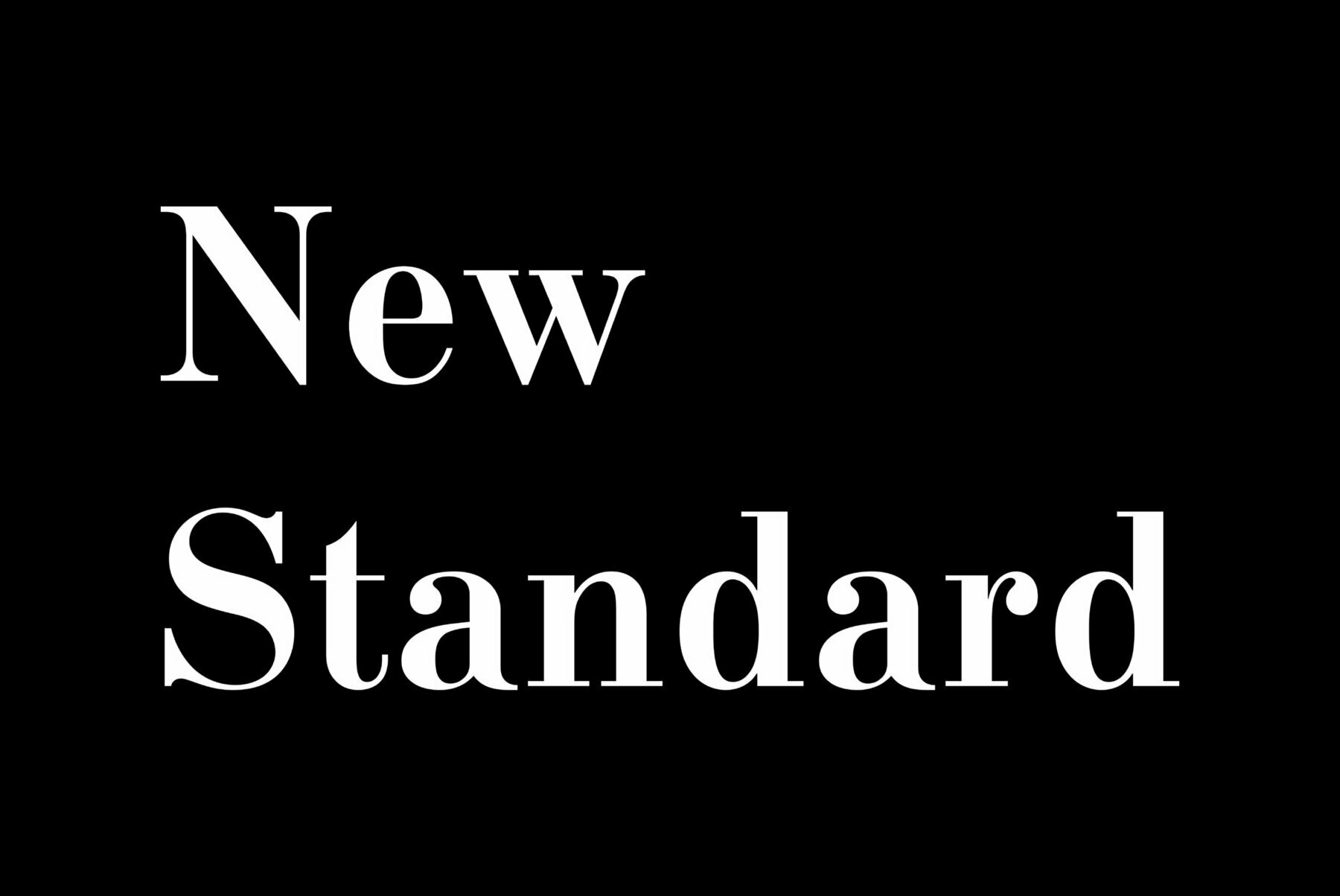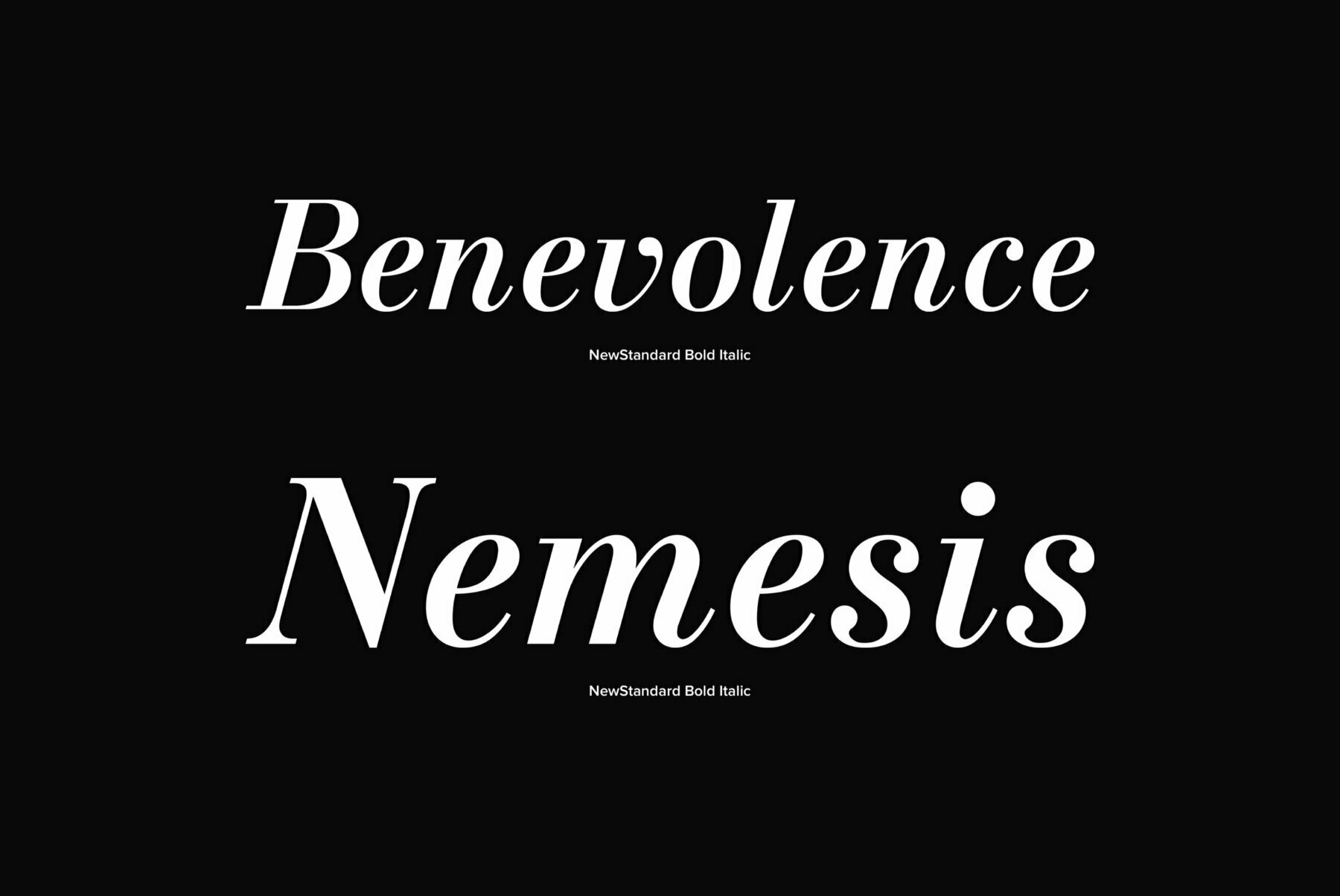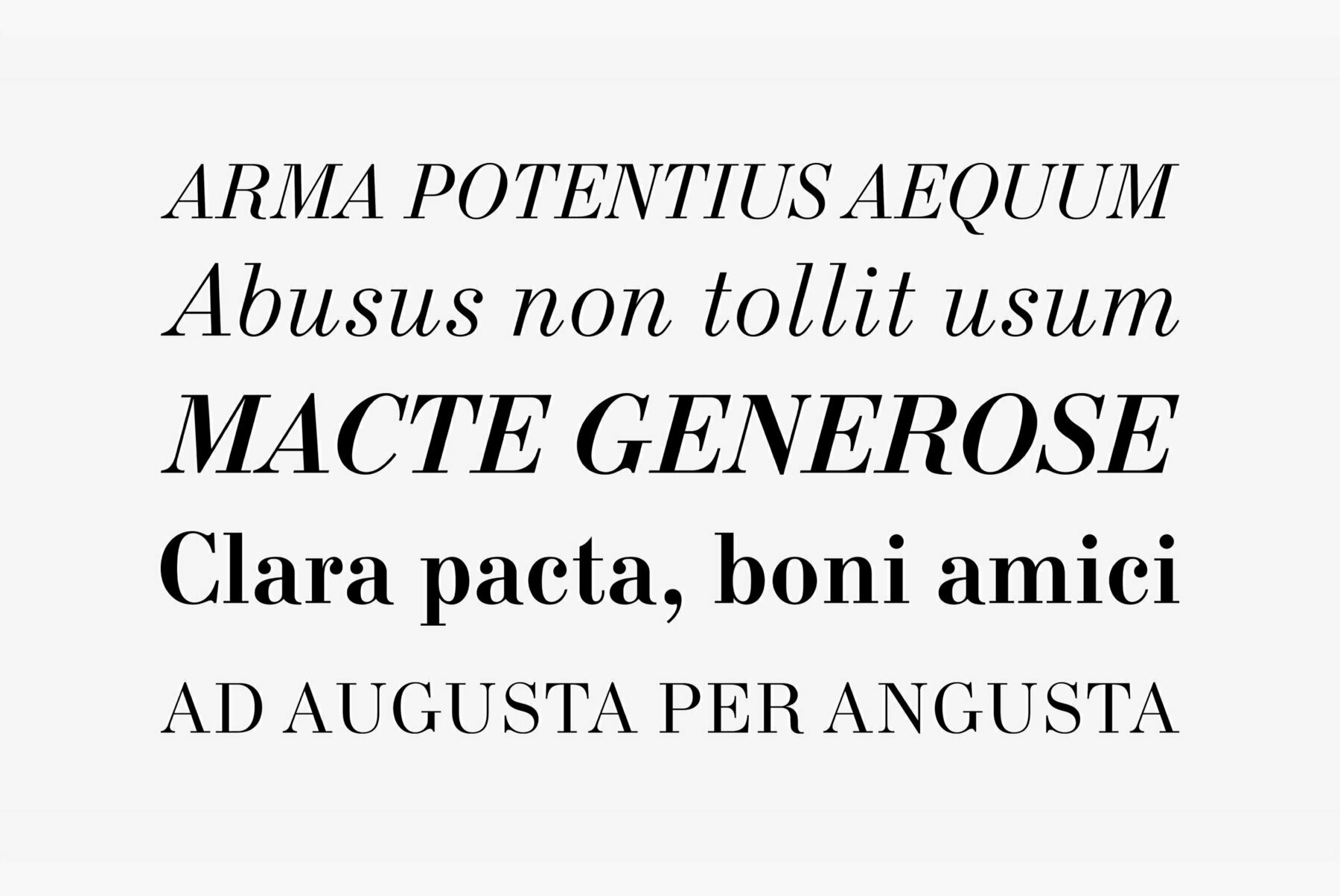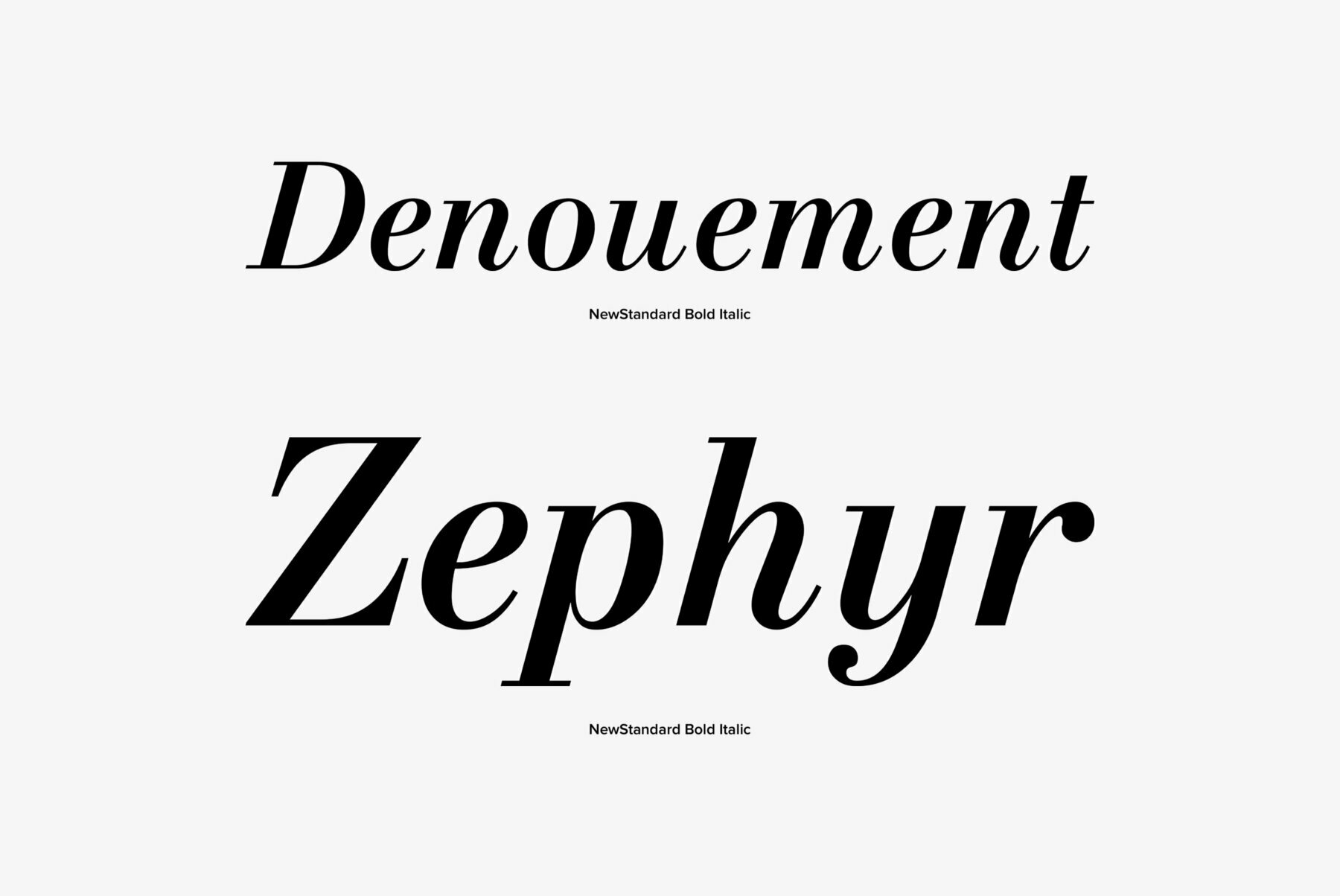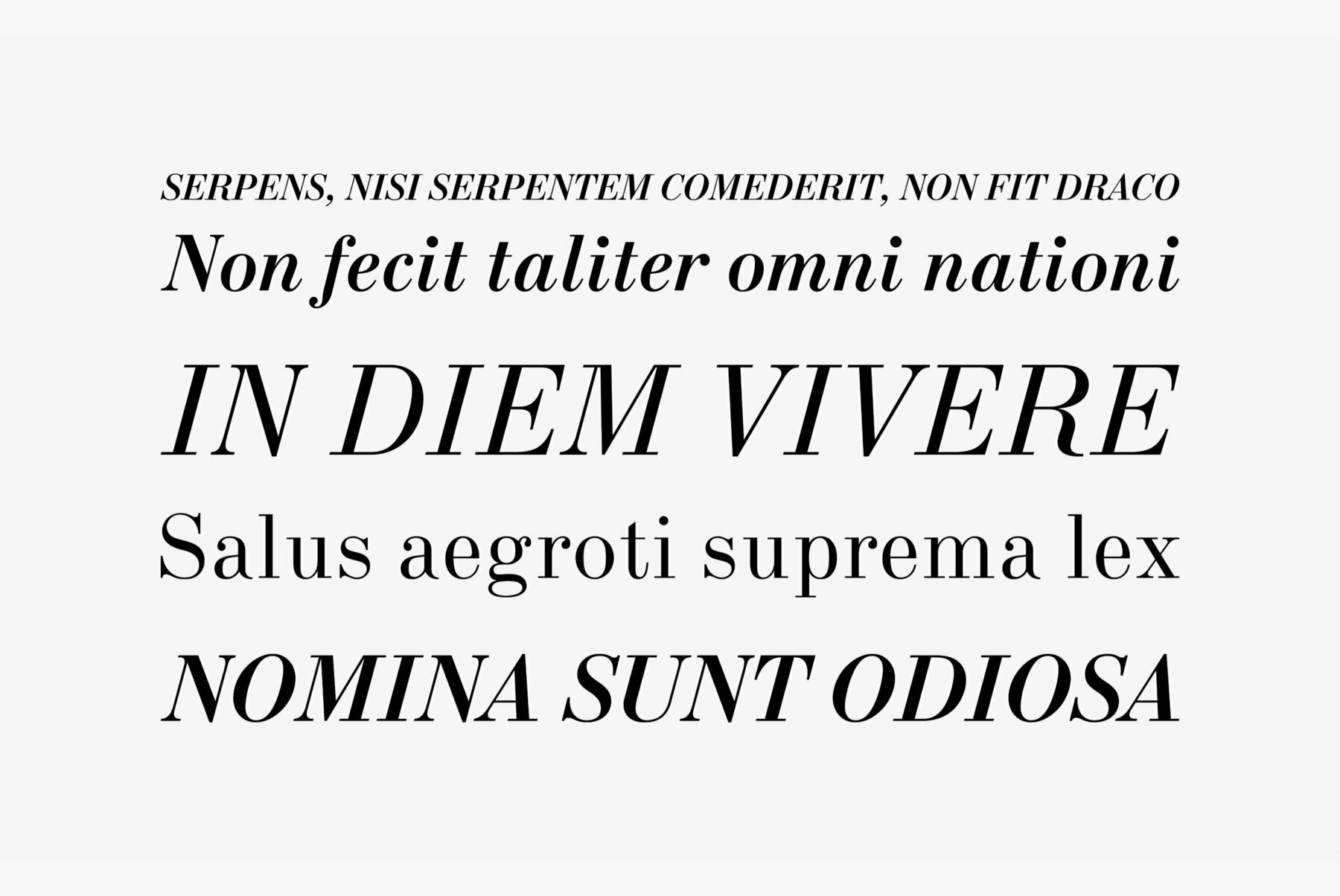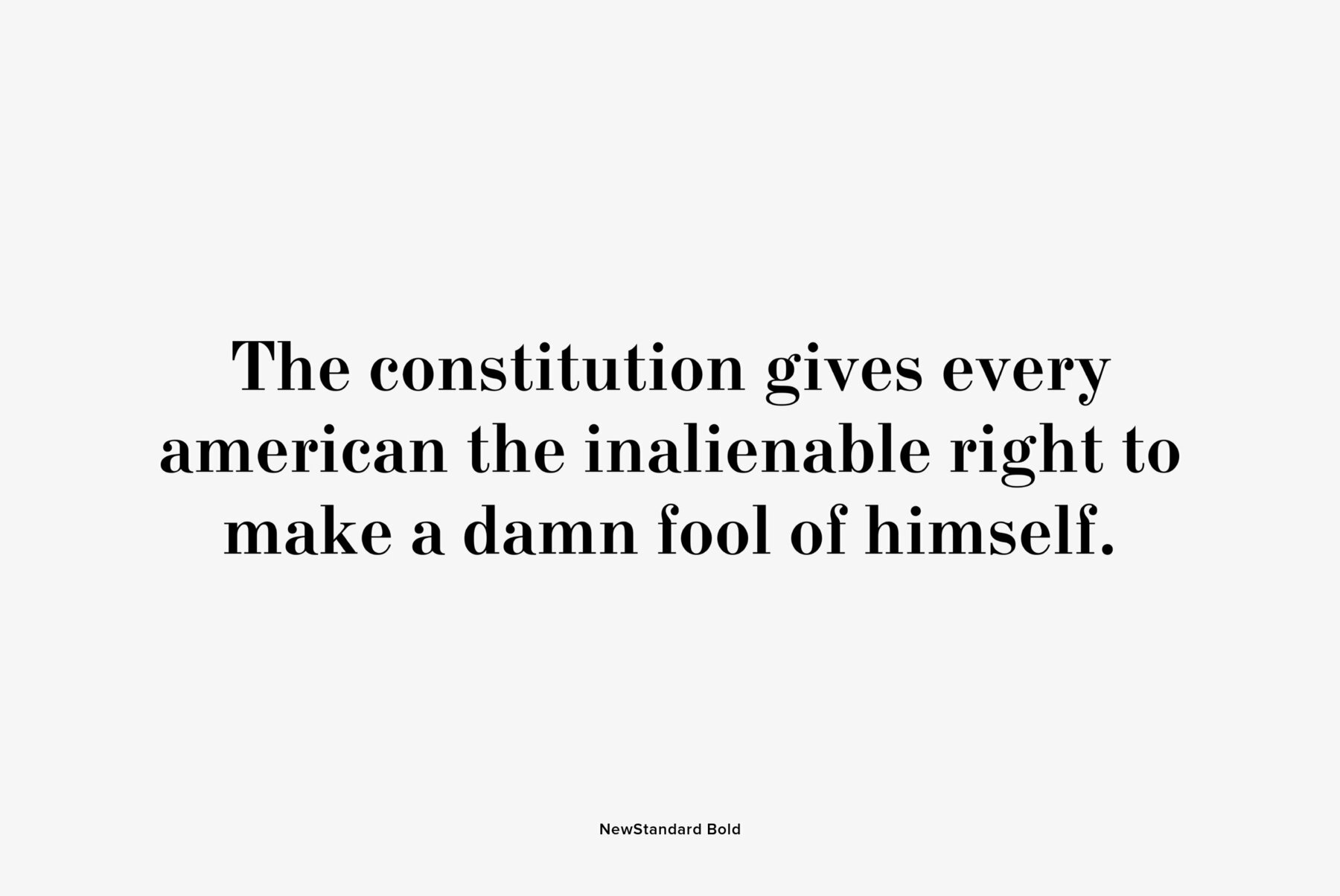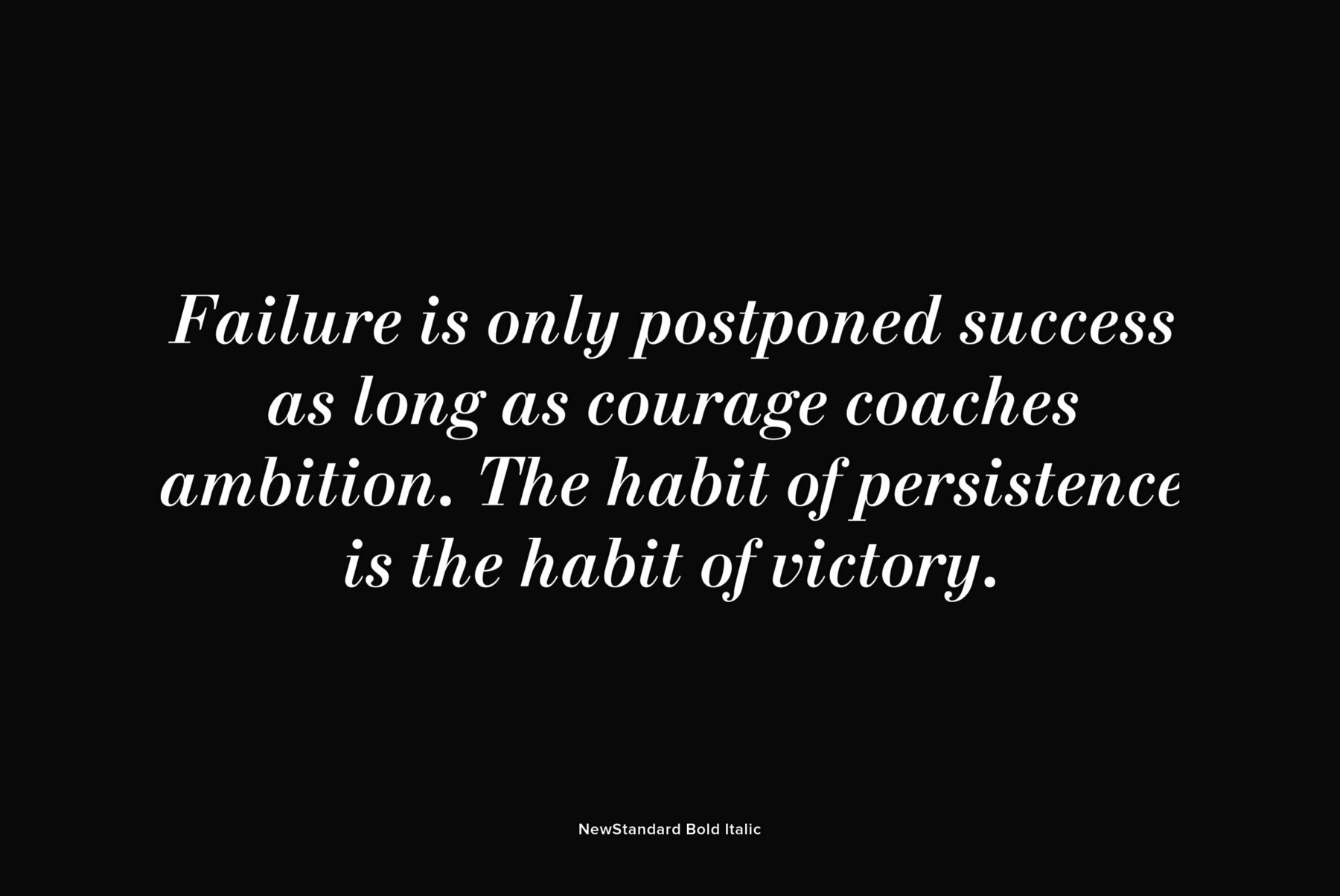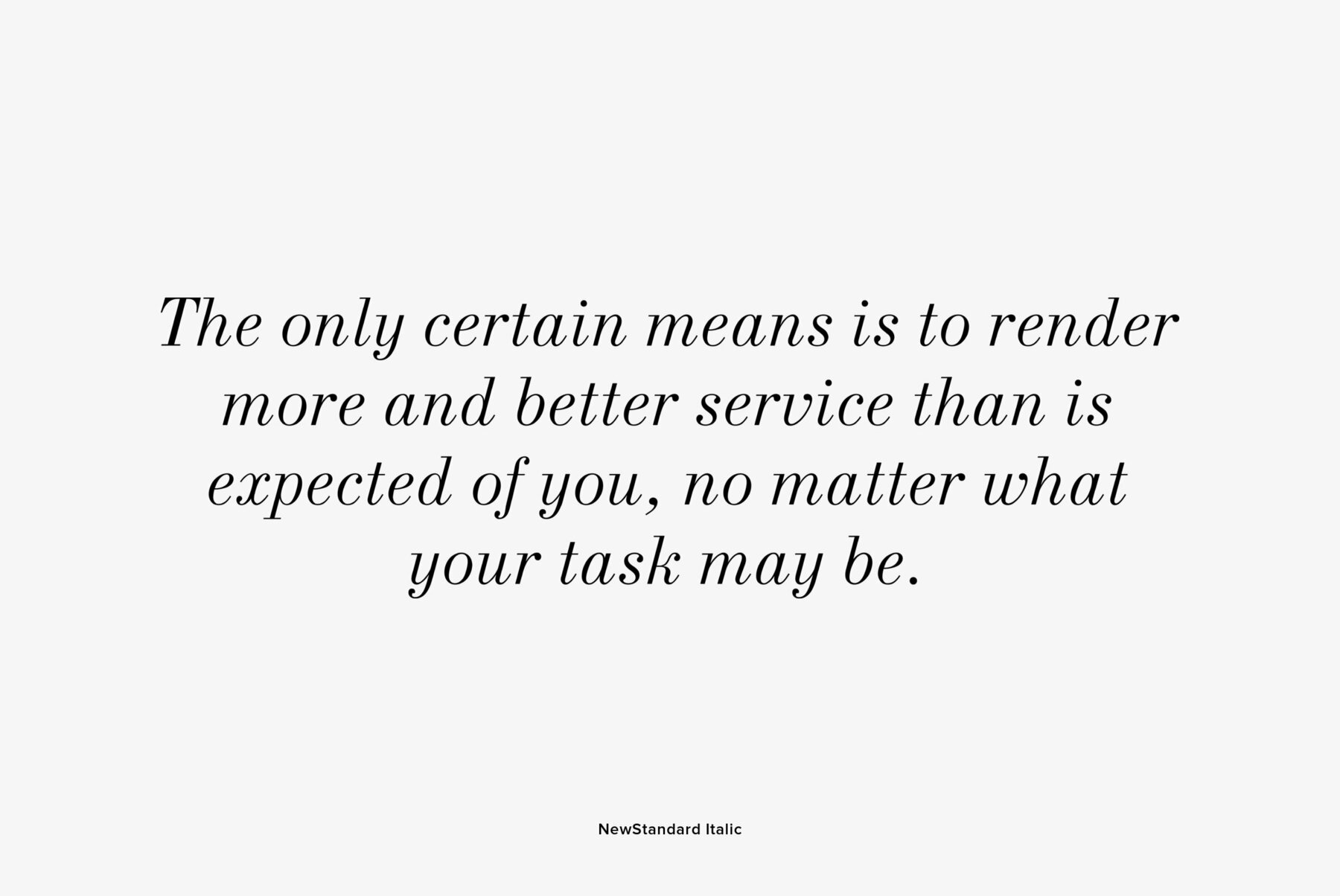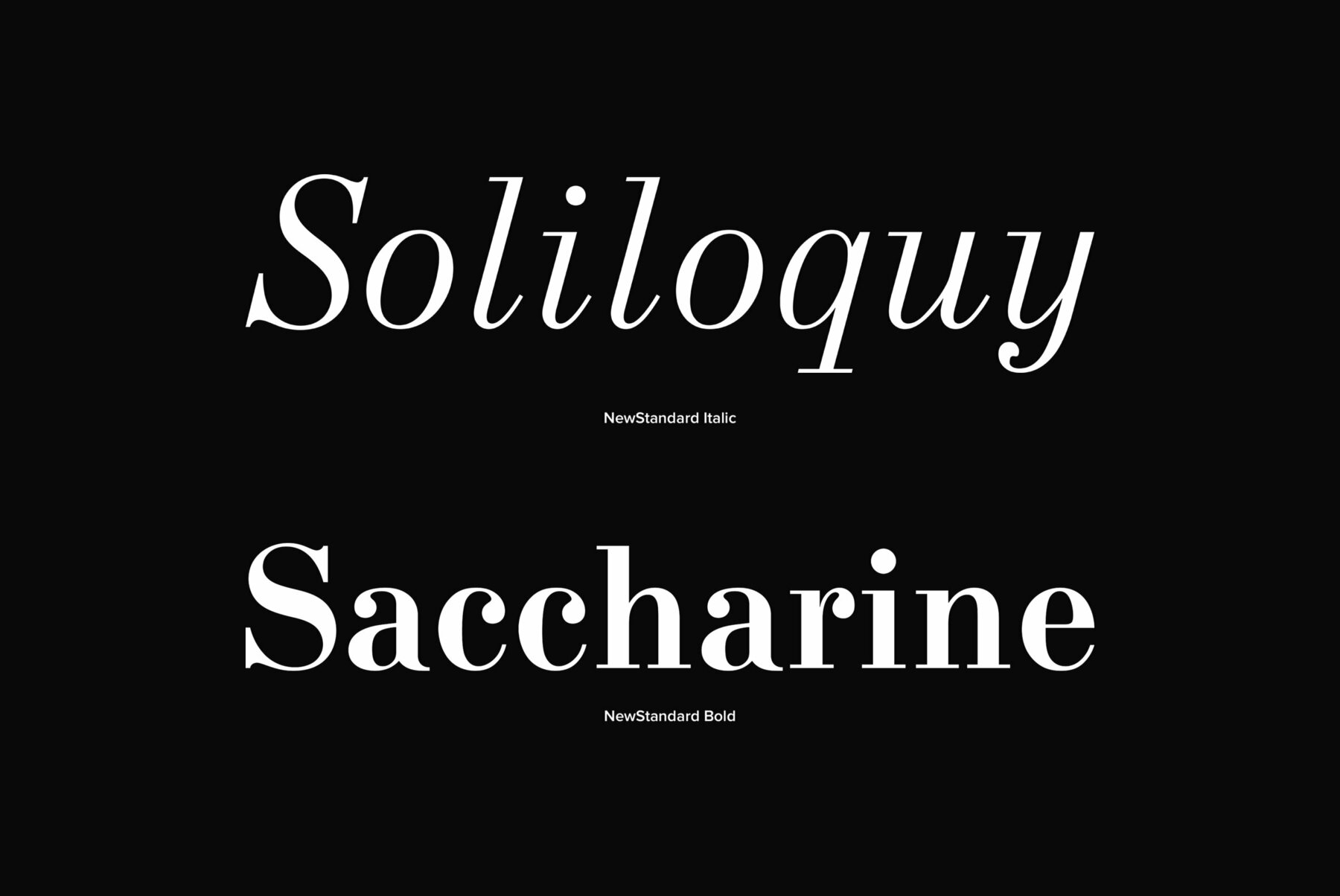
New Standard
Designed at Polygraphmash type design bureau circa 1940 (project manager Anatoly Shchukin). Based on text typefaces of the late 19th and early 20th centuries of Obyknovennaya ('Common') group. The digital version was developed at ParaType (ParaGraph) in 1996 by Vladimir Yefimov. Initially designed for a collection of works by Lenin, this typeface was widely used in Soviet Union for technical and scientific books, both for text and display.